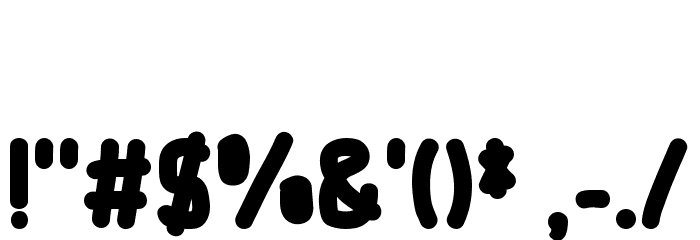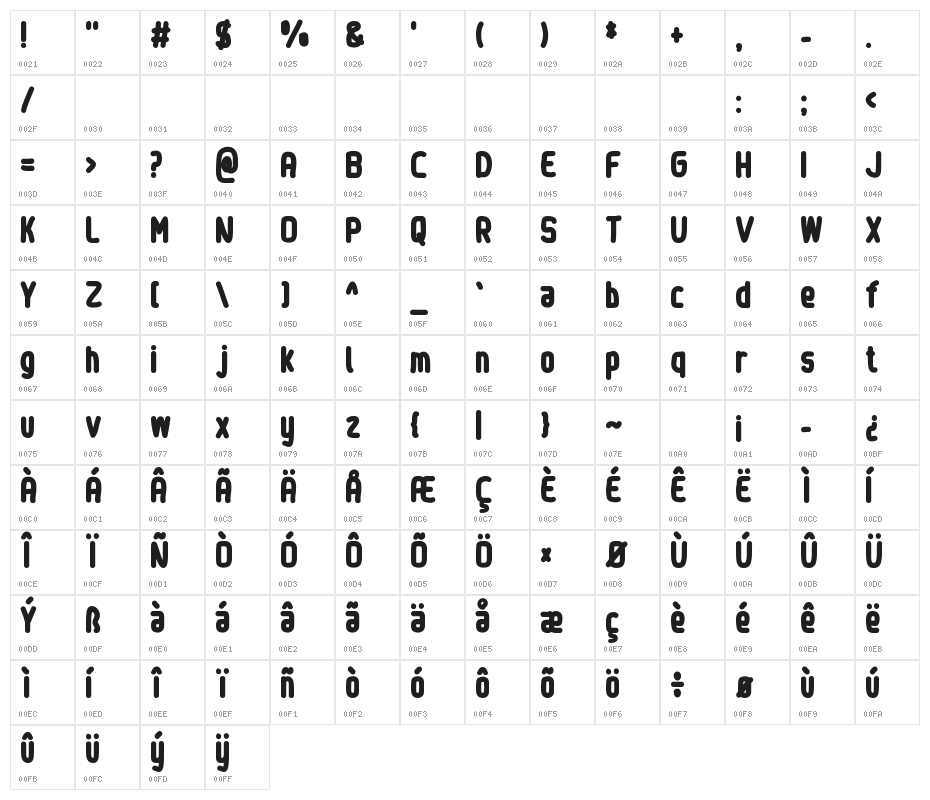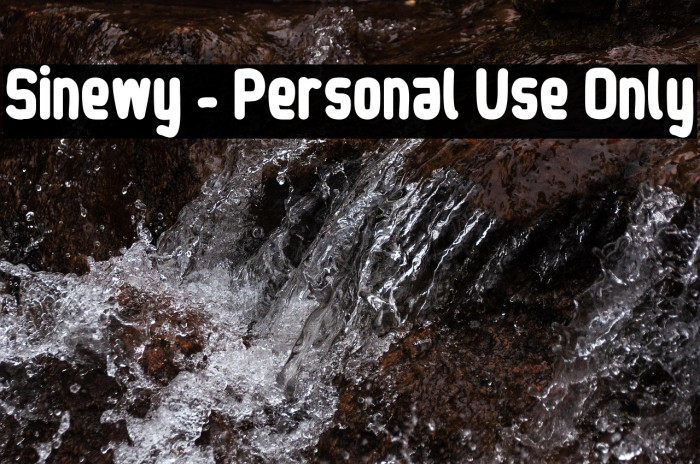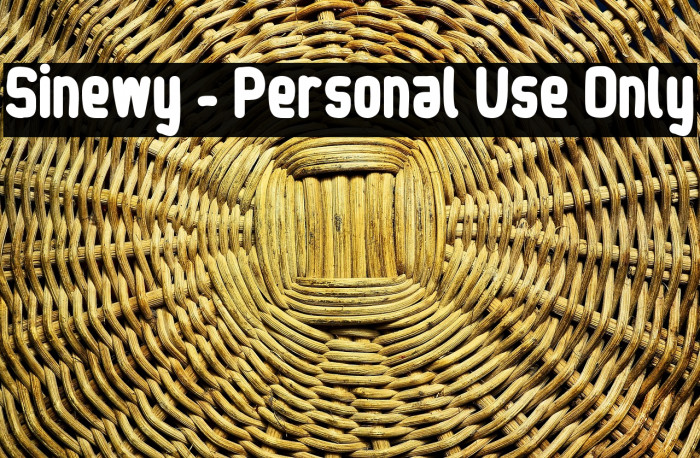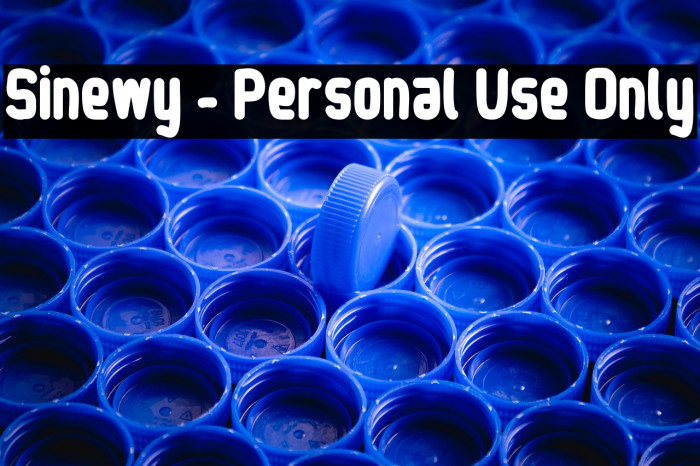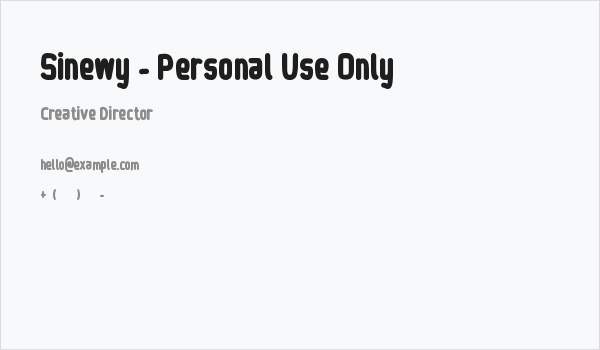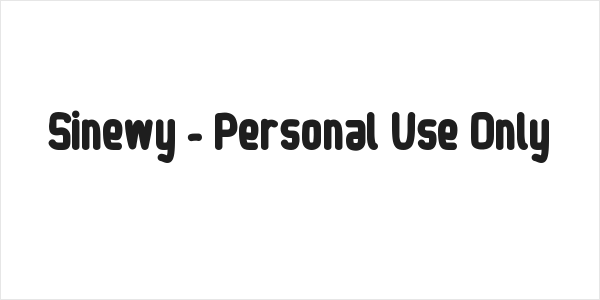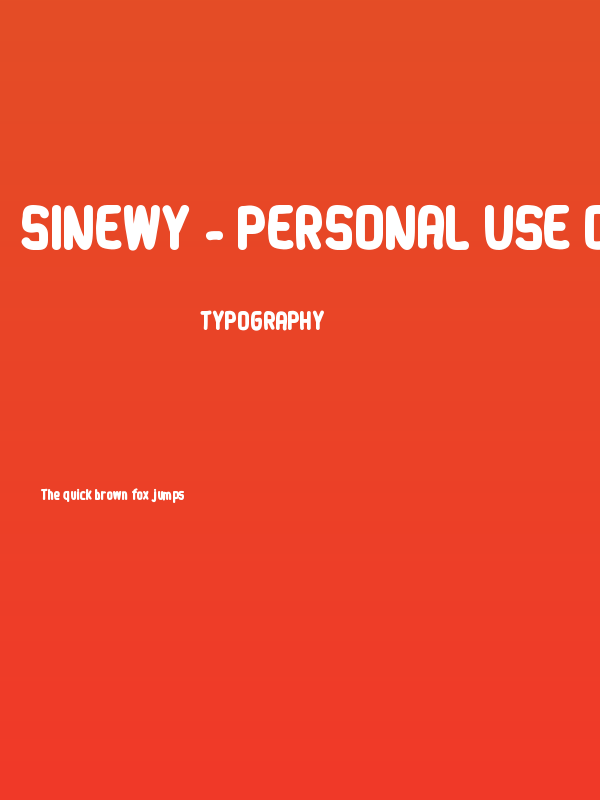
Sinewy - Personal Use Only Font
Sinewy - Personal Use Only Description
This font features a bold and rounded style with a playful and friendly appearance. The characters are thick and have a consistent stroke width, giving them a strong presence. The rounded edges and smooth curves contribute to a soft and approachable look, making it suitable for informal and fun designs. The uppercase and lowercase letters maintain a uniform height, while the special characters and numbers are designed to match the overall aesthetic. This font is ideal for projects that require a touch of whimsy and warmth.
| Proposed Projects | Ideal for children's books, playful branding, posters, and casual invitations. |